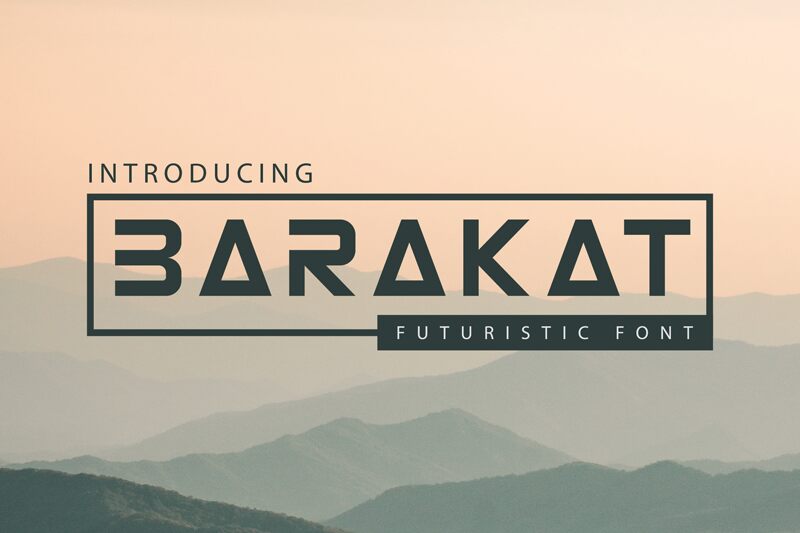
Barakat font family by Denustudios features simple geometric sans serif typefaces characterized by their minimalist and futuristic mood. This free font family contains a clean set of forms that uses a mix of sharp and smooth angles and edges. The result is visually fresh, neat, modern, and easily legible characters that will make reading a comfortable experience for viewers of all ages. The family makes use of capital letters, numerals, and some special characters suitable for your different design needs.
Barakat is a great choice for headlines, and sub-headlines in newspapers and magazines, posters, banners, and different types of digital content for the web or social media. It’s a suitable option for books, brochures, branding and identity projects, apparel design, and packaging.
Barakat | Futuristic Font is perfect for a variety of projects, including logos, branding, homeware designs, product packaging, mugs, quotes, posters, shopping bags, t-shirts, book covers, name cards, invitation cards, greeting cards, labels, photography, watermarks, special events, and all your other delightful projects that require a beautiful script.